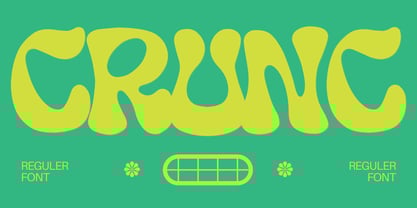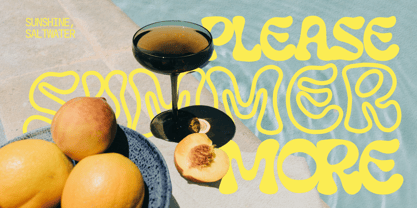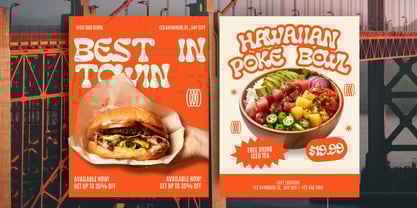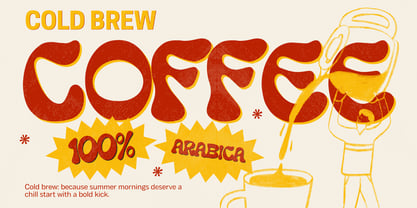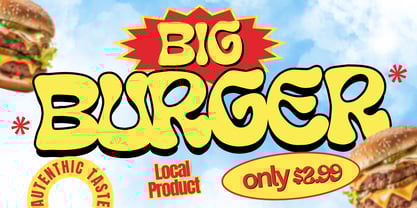
Crunc
The Crunc Font Family was designed by Rizky Setyaludin and published by Maghrib Type. Crunc contains 1 styles. More about this family
Crunc is an expressive and energetic display font designed to grab attention with its bold, fluid, and quirky letterforms. Blending retro vibes with a modern twist, Crunc stands out with its unique personality, making it an ideal choice for creative projects such as posters, product packaging, branding, and social media content.
Its organic shapes and exaggerated proportions bring a fun, dynamic feel to any layout, while maintaining strong visual impact. Crunc is more than just a font – it’s a visual statement that adds a playful spirit and bold character to your design work.
Make your message pop and stand out from the crowd with Crunc – a font that’s full of life and creativity.